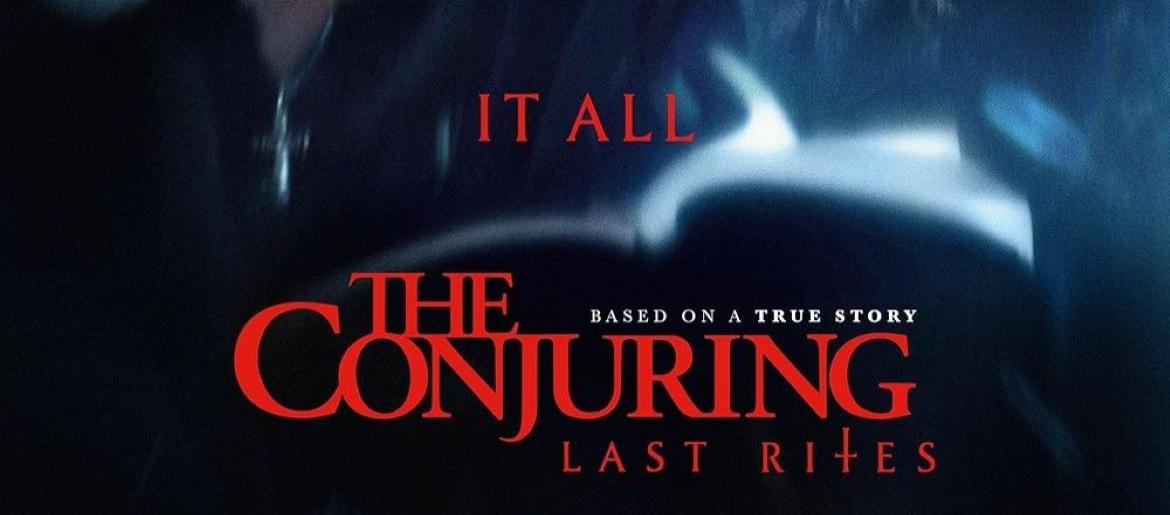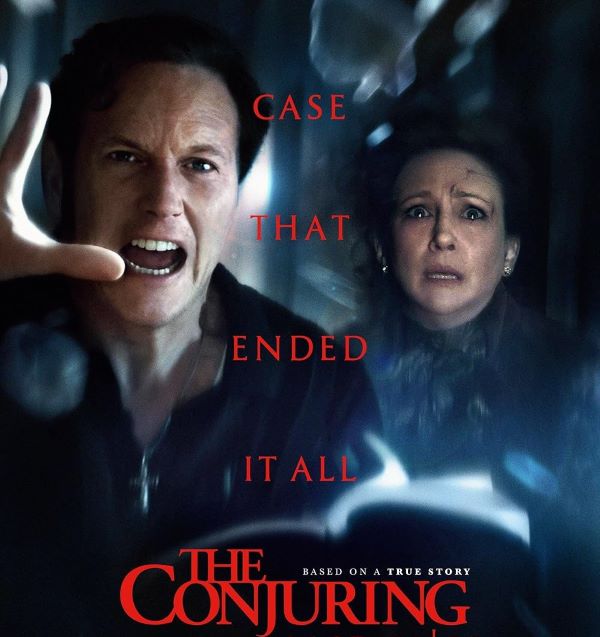
The Conjuring Font feels dark, chilling, and steeped in mystery, just as a modern take on this legendary franchise should. Its sharp serif strokes carry a Gothic elegance that hints at shadows, hidden corners, and whispers in the dark. What I like most is how the Conjuring font doesn’t rely on visual gimmicks—it’s clean but heavy with atmosphere, letting the tension build through simplicity. To me, it feels like a font that already makes you look over your shoulder, perfect for horror posters, teaser art, or anything that needs to promise a supernatural chill. The font used originally in the movie poster is probably Garamond Semi Bold. You can also download similar font below.
The Conjuring Font (2025)
The Conjuring Font